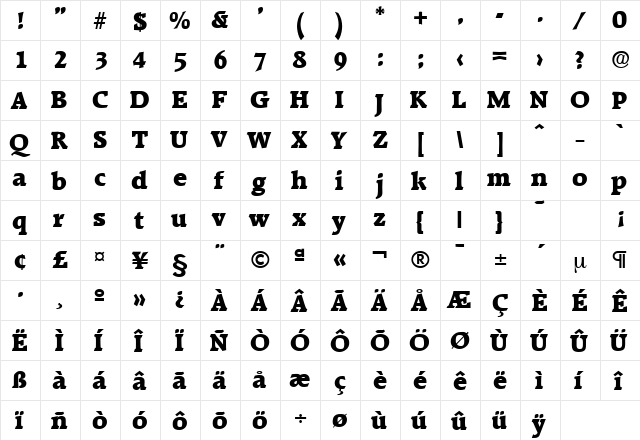
Raleigh-Serial-Heavy Regular
Design Context for Raleigh-Serial-Heavy Typeface
Raleigh-Serial-Heavy takes a measured approach to typography — its balanced proportions and neutral character make it a reliable workhorse for both digital and print work.